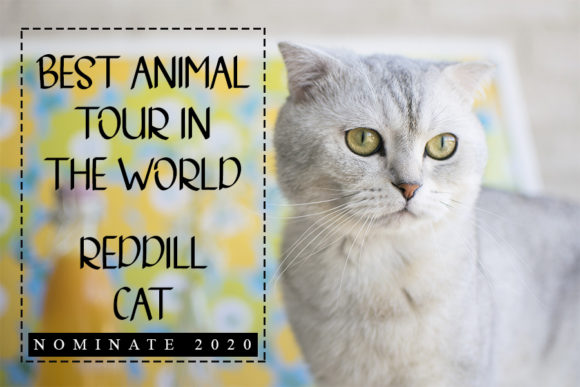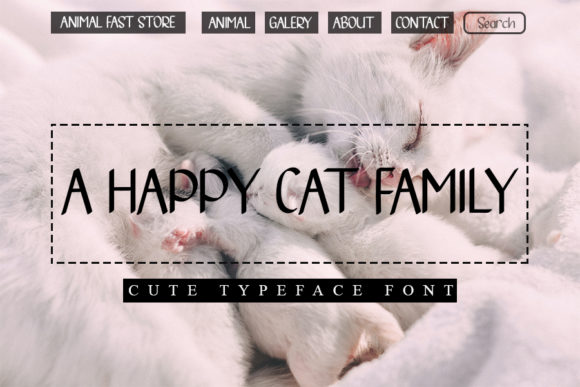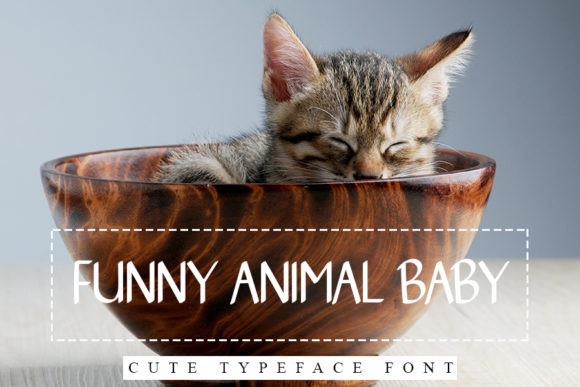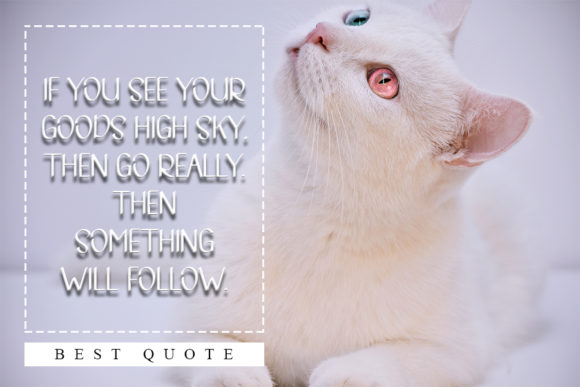
Discover the Charm of Animal House Font: Elevate Your Creativity with this Handwritten Gem
Are you on the hunt for a font that adds a touch of casual elegance to your designs? Look no further than the Animal House Font, a simple yet charming handwritten font that’s perfect for a variety of creative projects. In this article, we’ll dive into the world of Animal House Font, exploring its features, uses, and benefits for designers and crafters alike.
What is Animal House Font?
Animal House Font is a beautiful, handwritten font that’s designed to bring a sense of warmth and personality to your designs. Its casual and simple nature makes it an excellent choice for a wide range of applications, from social media graphics and Instagram posts to DIY projects and calligraphy scripts.
With Animal House Font, you can add a touch of whimsy and charm to your creations, making them stand out from the crowd. Whether you’re a designer, crafter, or simply a creative enthusiast, this font is sure to inspire your next project.
Key Features of Animal House Font
So, what makes Animal House Font so special? Here are some of its key features:
- Handwritten style: Animal House Font boasts a beautiful, handwritten style that’s perfect for adding a personal touch to your designs.
- Casual and simple: This font’s casual and simple nature makes it easy to read and use in a variety of contexts.
- Versatile: Animal House Font is suitable for a wide range of creative projects, from social media graphics to DIY crafts.
Uses for Animal House Font
So, what can you use Animal House Font for? The possibilities are endless! Here are some ideas to get you started:
- Instagram graphics: Add a touch of personality to your Instagram posts and stories with Animal House Font.
- DIY projects: Use Animal House Font to create beautiful calligraphy scripts for your DIY projects, such as handmade cards and gift tags.
- Social media graphics: Create eye-catching social media graphics, such as Facebook posts and Twitter headers, with Animal House Font.
- Branding and packaging: Use Animal House Font to add a personal touch to your brand’s packaging and marketing materials.
Benefits of Using Animal House Font
So, why should you choose Animal House Font for your next project? Here are some benefits to consider:
- Unique and eye-catching: Animal House Font adds a touch of personality to your designs, making them stand out from the crowd.
- Versatile: Animal House Font is suitable for a wide range of creative projects, making it a great addition to your font library.
In conclusion, Animal House Font is a beautiful, handwritten font that’s perfect for designers and crafters looking to add a touch of personality to their creations. With its casual and simple nature, versatility, and ease of use, this font is sure to become a staple in your font library.